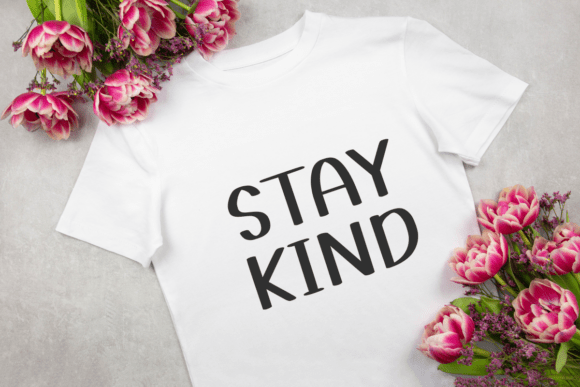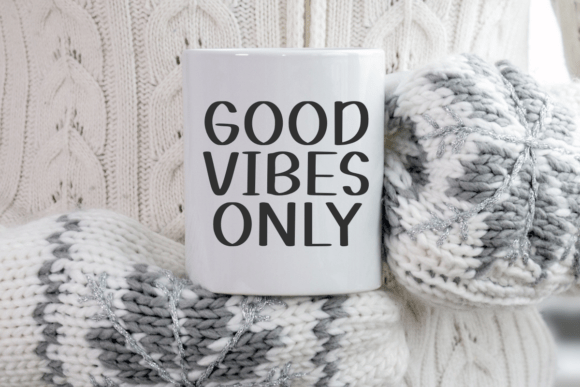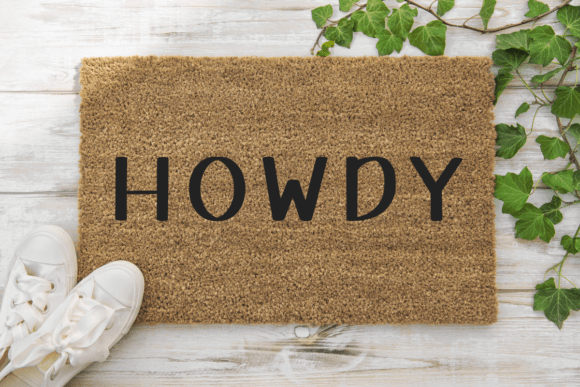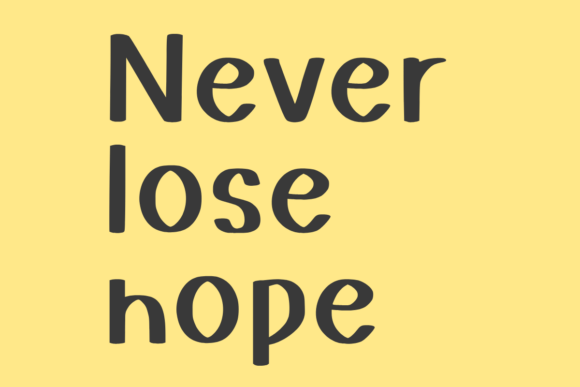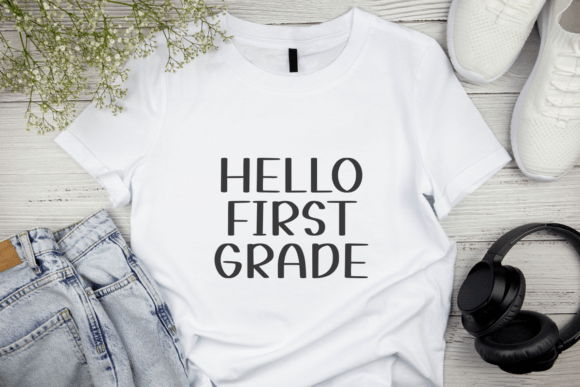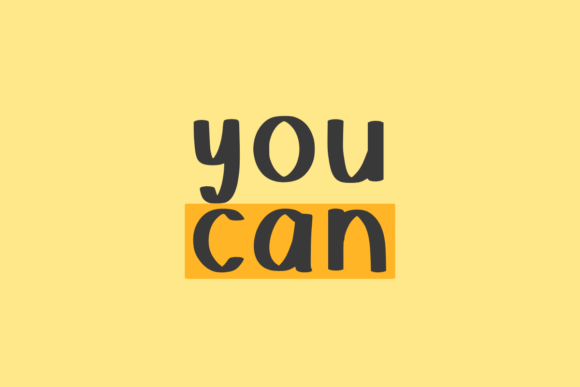
Bear Hugs Font: The Perfect Addition to Your Crafting Arsenal
Are you a crafter, designer, or DIY enthusiast looking for a font that can add a touch of warmth and personality to your projects? Look no further than Bear Hugs Font, a cute sans serif handwriting font designed to bring a soft, friendly, and natural look to your creations. In this article, we’ll dive into the features and benefits of Bear Hugs Font, and explore how it can elevate your crafting game.
A Warm and Handcrafted Feel
Bear Hugs Font is designed to mimic the look and feel of handwritten text, with simple strokes and smooth curves that give it a warm and handcrafted feel. This font is perfect for craft projects, planners, stickers, kids’ worksheets, classroom printables, and DIY designs, where a personal touch can make all the difference. Whether you’re creating something for yourself or as a gift, Bear Hugs Font is sure to add a touch of personality and whimsy.
Perfect for Crafting Moms and Designers
Bear Hugs Font is a dream come true for crafting moms and designers who love working with adorable handwritten styles. Its smooth curves and simple strokes make it easy to cut using popular cutting machines like Cricut and Silhouette, allowing you to bring your creative visions to life with ease. Whether you’re creating custom signs, decorations, or gifts, Bear Hugs Font is the perfect choice.
So, what can you create with Bear Hugs Font? The possibilities are endless! Here are just a few ideas to get you started:
- Quotes and inspirational messages
- Kids’ labels and stickers
- Coloring pages and worksheets
- Bullet journals and planners
- Scrapbooks and photo albums
- Playful graphic projects and illustrations
Why Choose Bear Hugs Font?
So, why should you choose Bear Hugs Font for your next project? Here are just a few reasons:
- Unique and playful style: Bear Hugs Font has a one-of-a-kind look that’s sure to stand out from the crowd.
- Ease of use: Its simple strokes and smooth curves make it easy to cut and use with popular cutting machines.
- Versatility: Bear Hugs Font can be used for a wide range of projects, from crafty DIY designs to professional graphic projects.
- Warm and inviting feel: This font has a warm and handcrafted feel that’s sure to add a touch of personality to your creations.
Tips and Tricks for Using Bear Hugs Font
Here are a few tips and tricks for getting the most out of Bear Hugs Font:
- Experiment with different colors and textures: Bear Hugs Font looks great in a variety of colors and textures, so don’t be afraid to experiment and find the perfect combination for your project.
- Pair it with other fonts: Bear Hugs Font pairs well with other fonts, so try combining it with a bold or script font for added visual interest.
- Use it for titles and headings: Bear Hugs Font is perfect for titles and headings, where its playful and whimsical style can really shine.